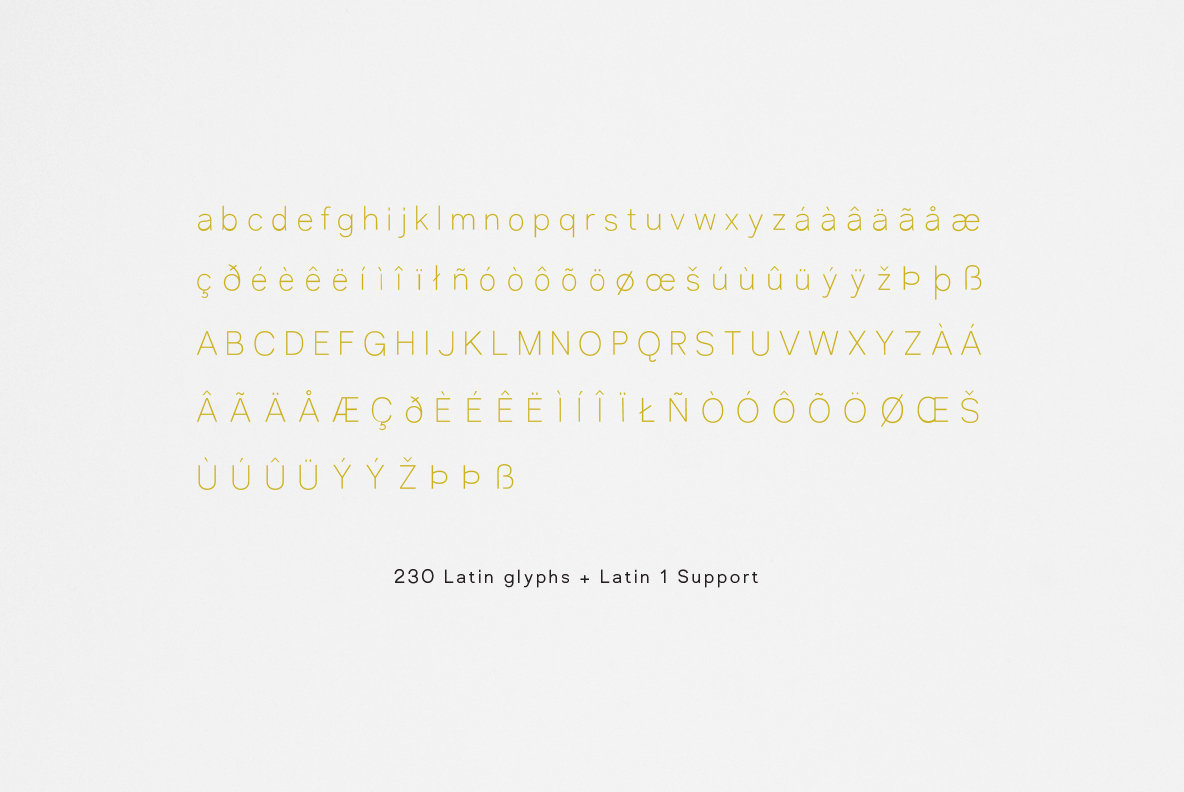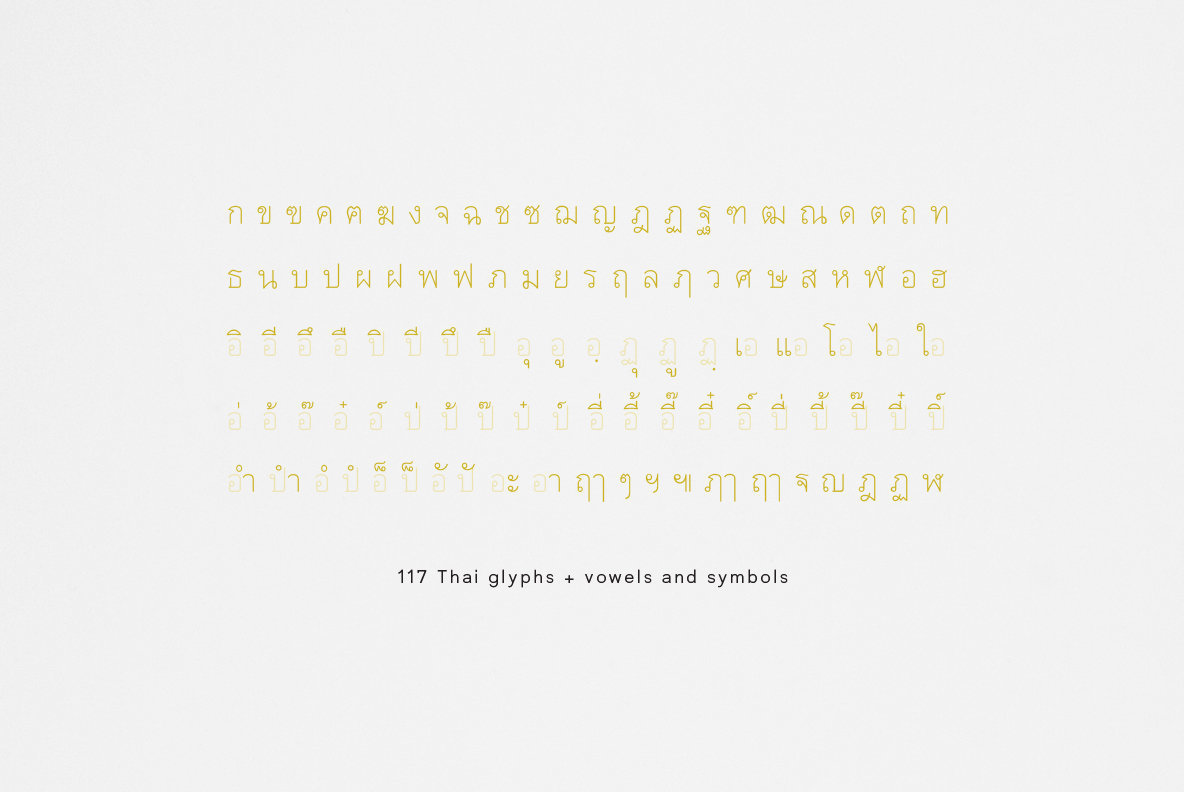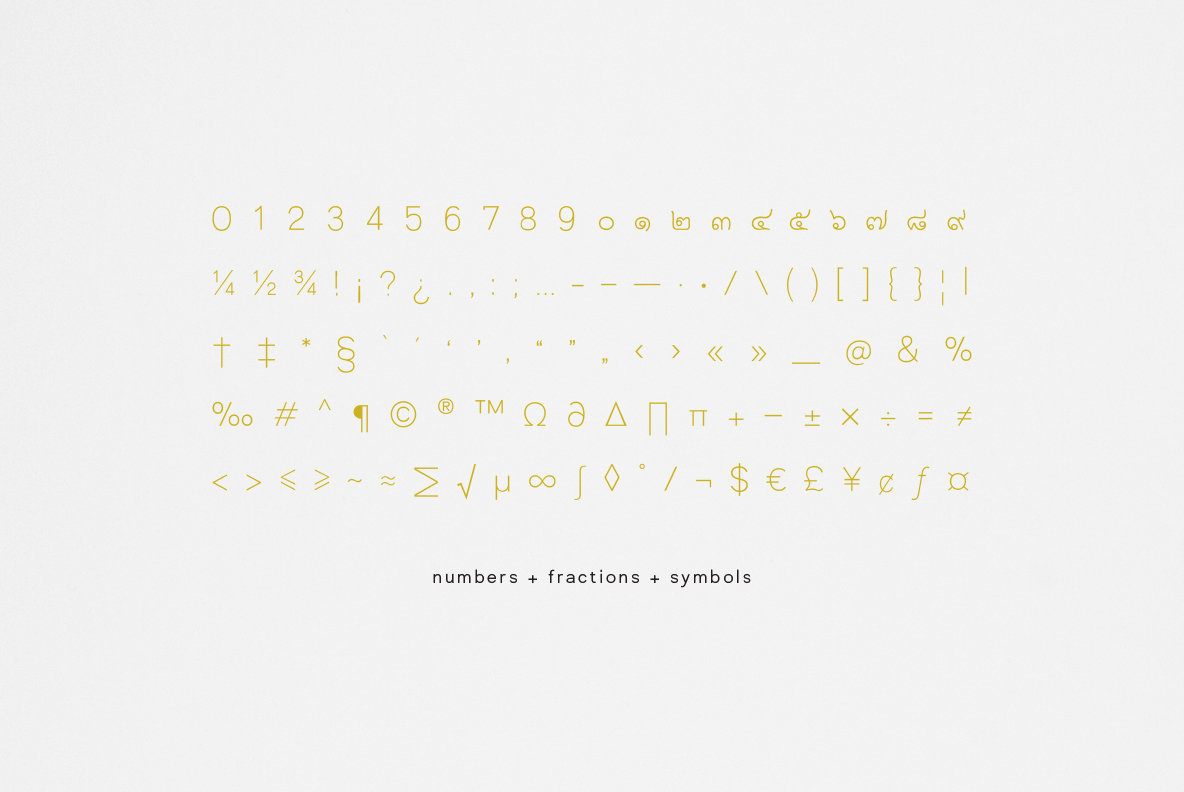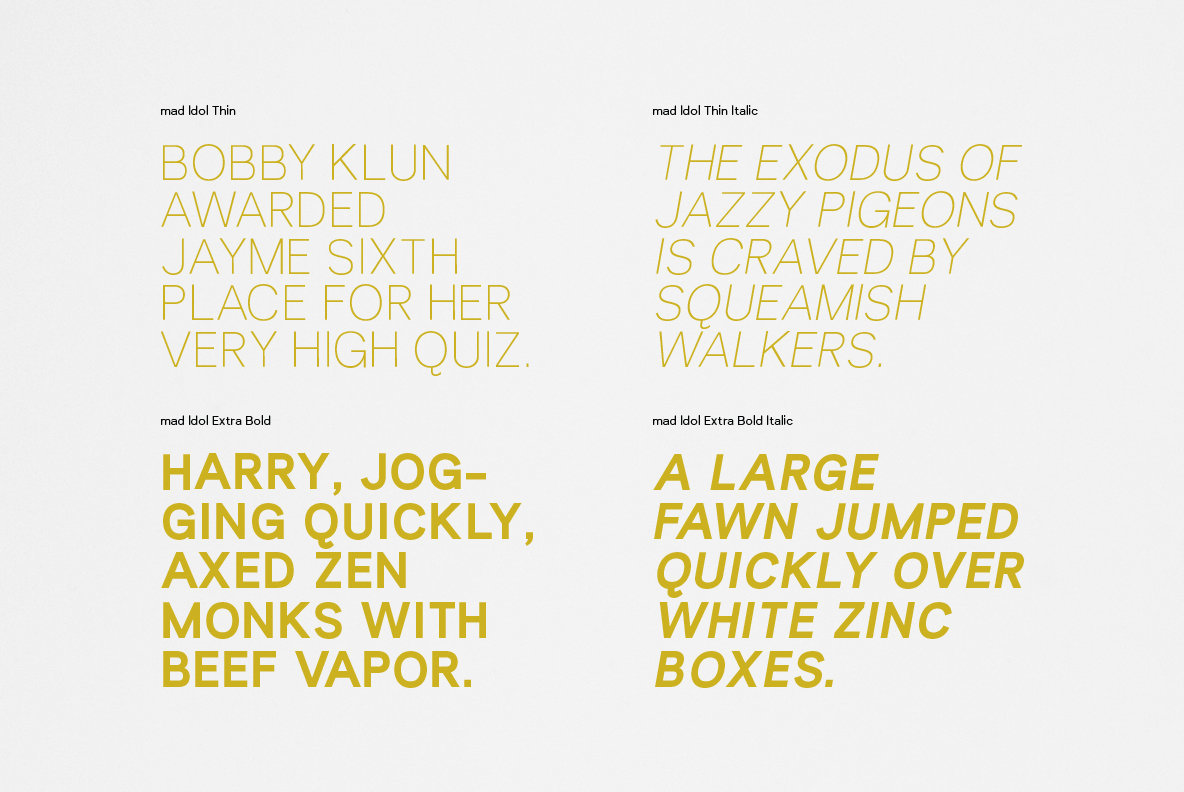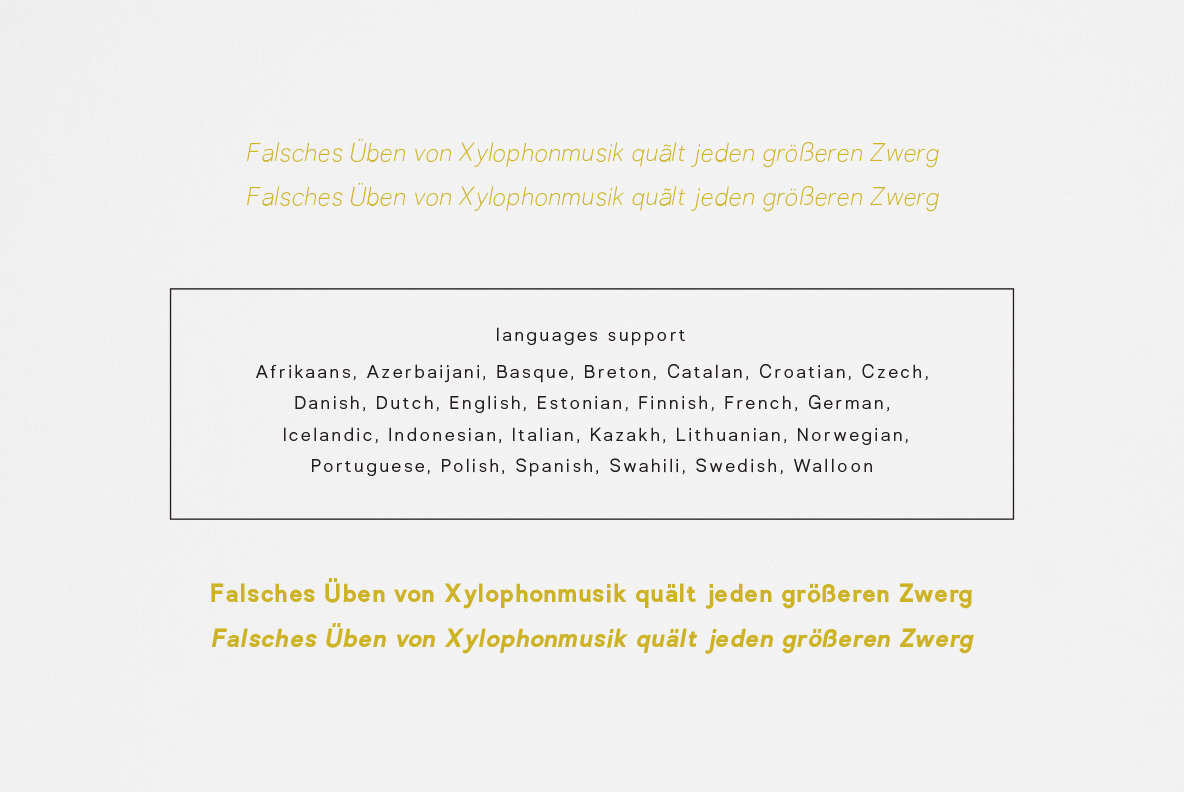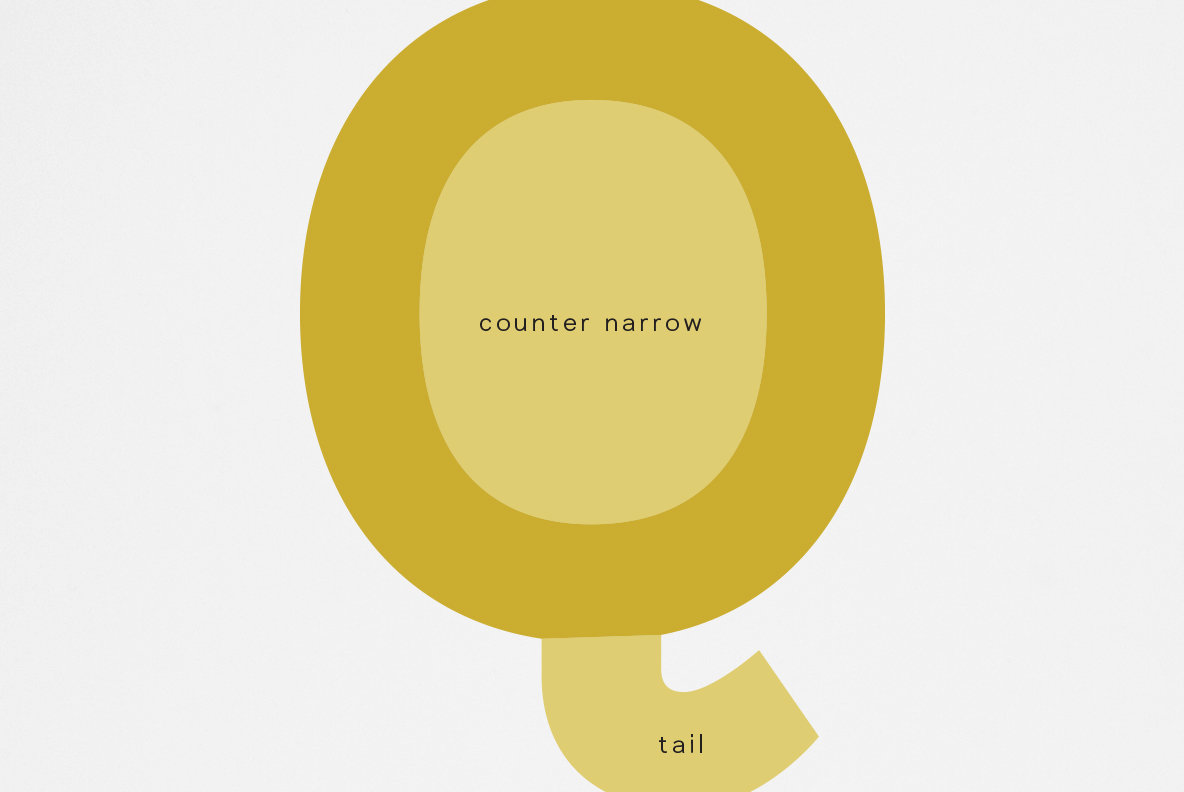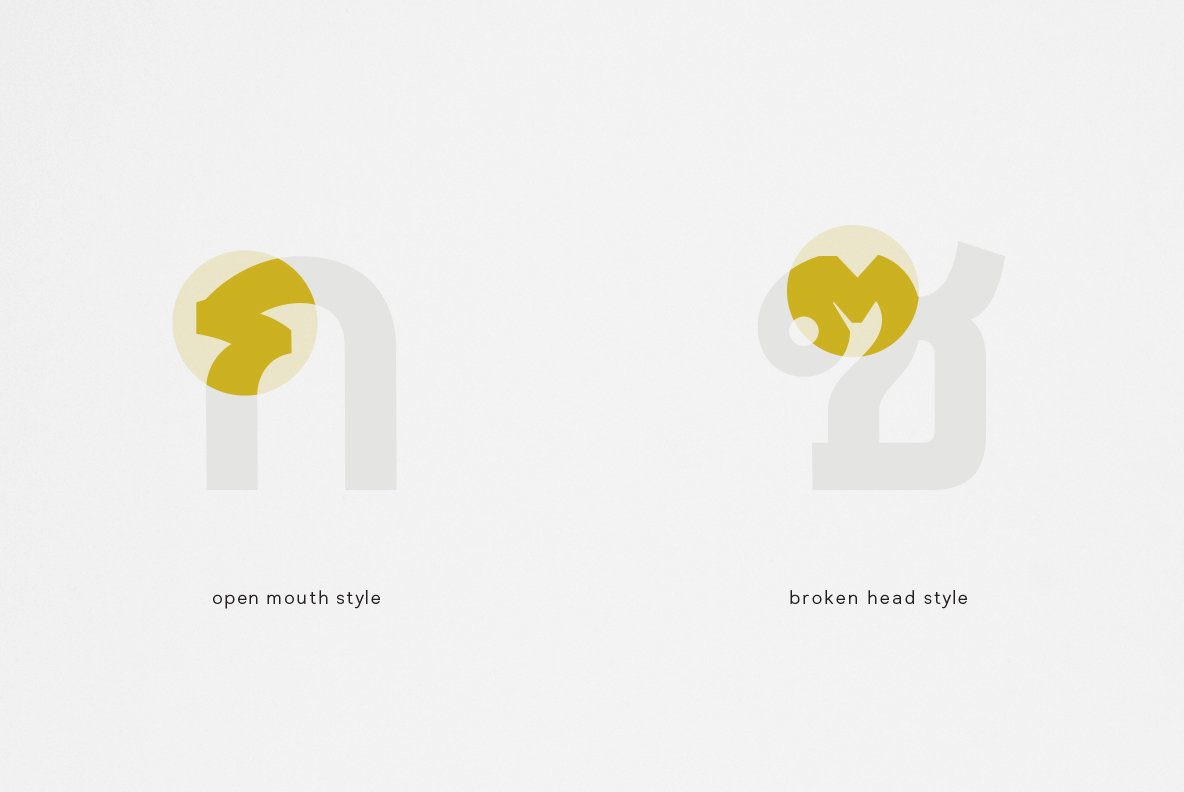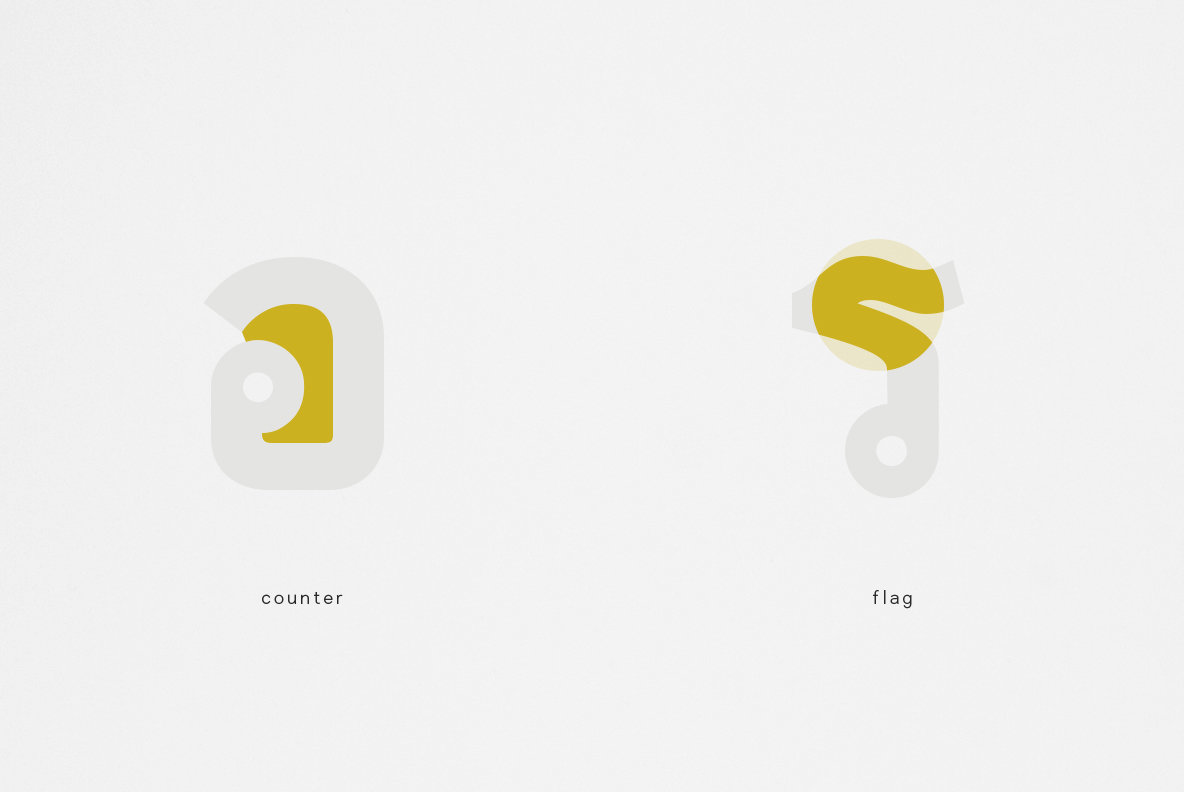
mad Idol Font
mad Idol is inspired by “Thai Handwriting Exercise Book”, with rounded head and circular as "Thai modern classic form” which is the key concept for this sans serif type family. It comes with 4 weights, each weight includes extended language support, ligatures and Thai characters within the set.